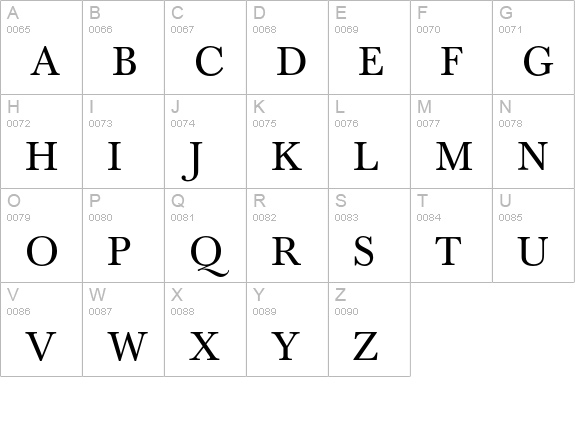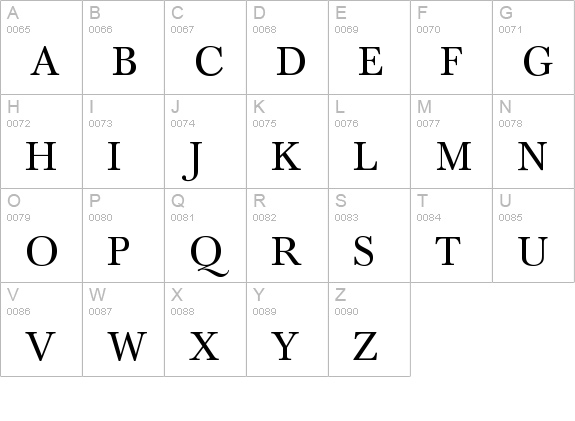
Baskerville Expert Regular is the standard, neutral variant in the Baskerville typeface family \xE2\x80\x94 well suited to general body text, paragraphs, and standard typographic work.
Baskerville Expert Regular font is a classic and timeless typeface that exudes sophistication and elegance. With its clean lines and balanced proportions, this font is perfect for conveying a sense of professionalism and refinement in your designs. Its crisp serifs and graceful curves make it ideal for use in various projects, from branding to editorial design. What sets Baskerville Expert Regular font apart is its exceptional readability and versatility. Whether used for body text or headlines, this font maintains its clarity and legibility even at smaller sizes. Its subtle details and subtle contrasts contribute to its overall charm and make it a standout choice for any design project. Best of all, Baskerville Expert Regular font is available for free download at FontsMarket.com. This means that you can easily access this premium font and incorporate it into your work without any cost. Don't miss out on the opportunity to enhance your designs with the timeless beauty of Baskerville Expert Regular font.